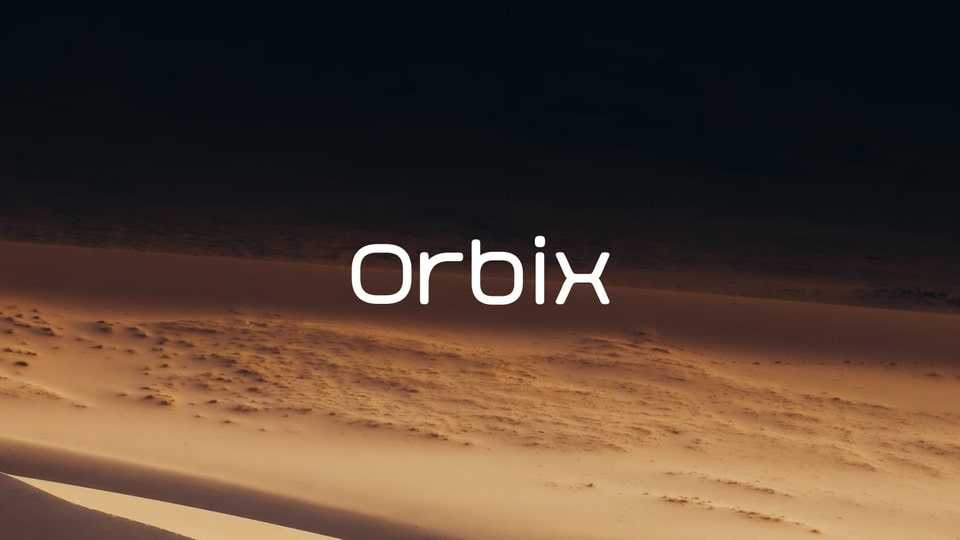
Dosnload Orbix font, a display typeface with rounded curves, created for AdventureX. Orbix is a style font. While the proportion is close to square, the rounded curve design further reduces the readability of Orbix in long text.